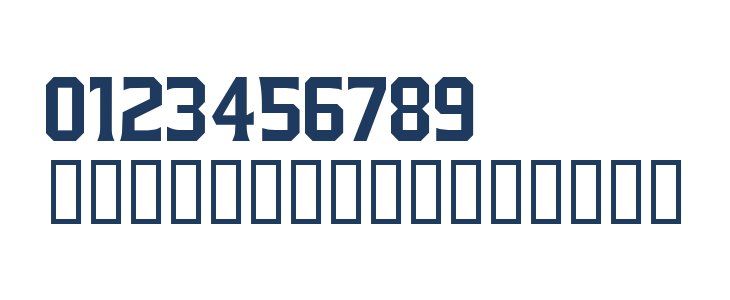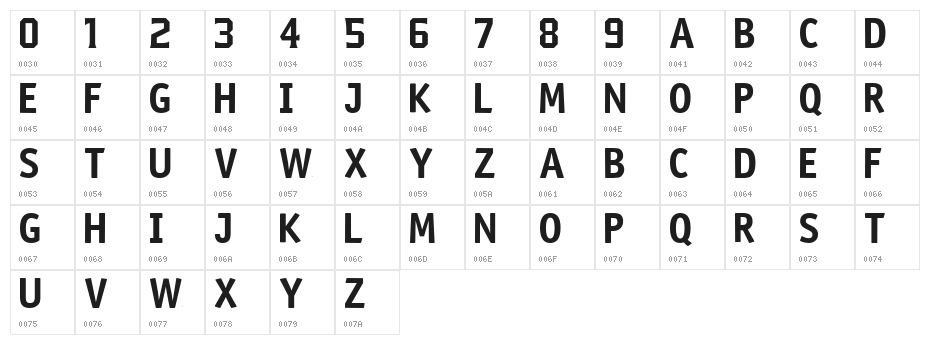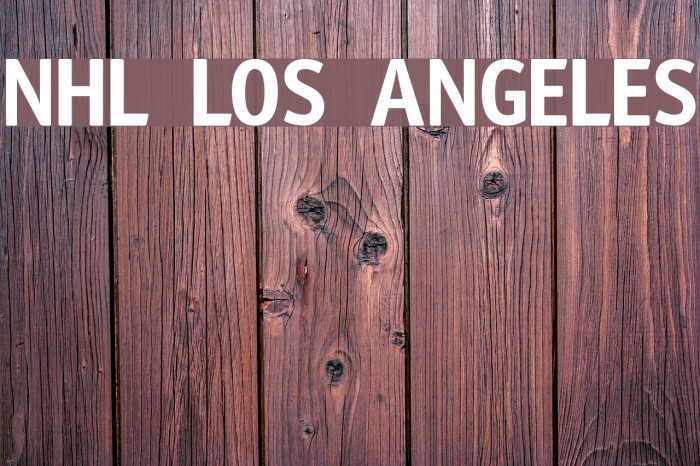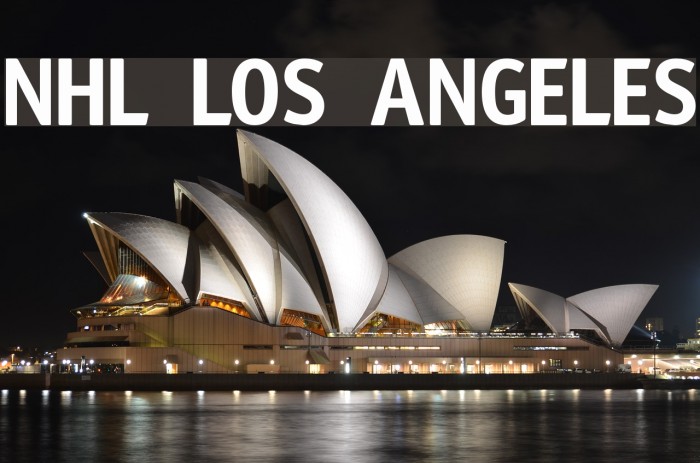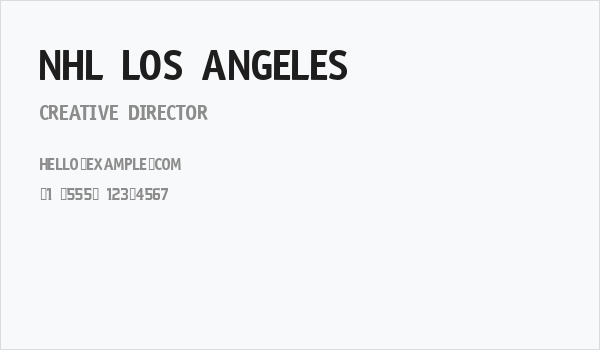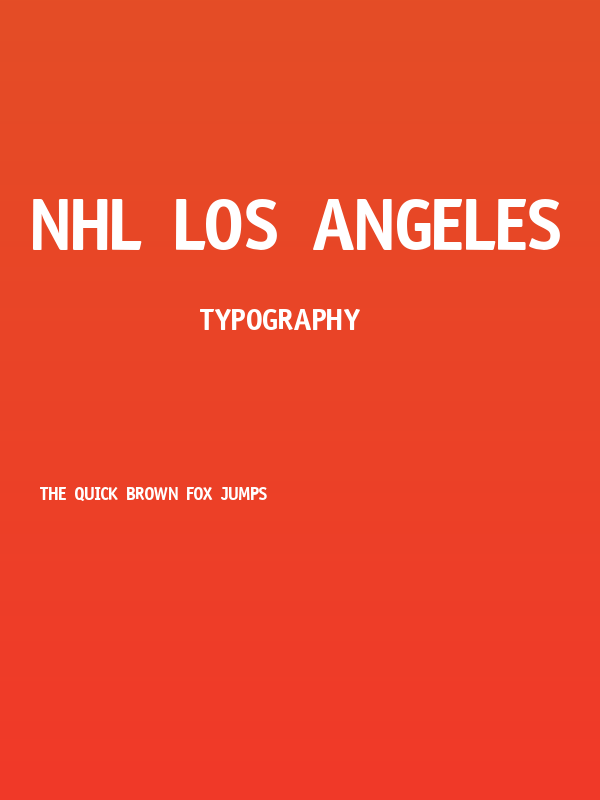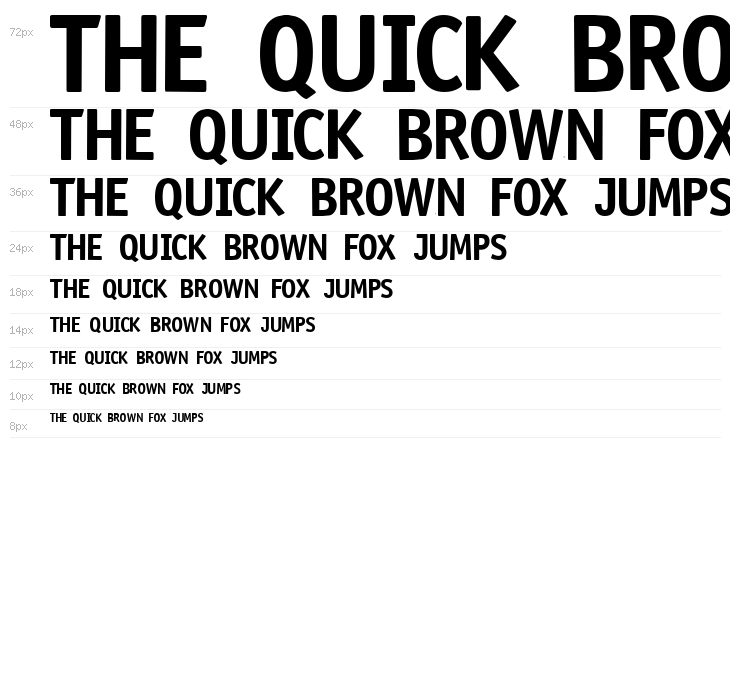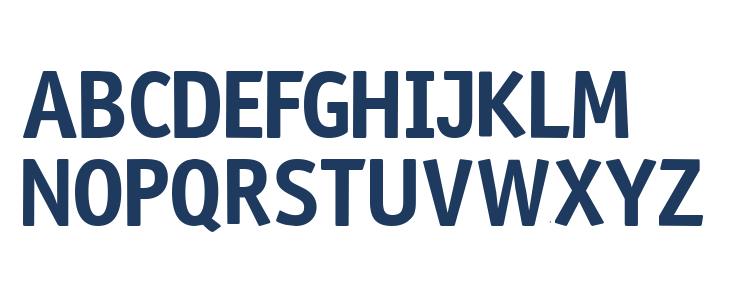
NHL Los Angeles Font
NHL Los Angeles Description
This font features a bold and assertive style, characterized by its strong geometric shapes and clean lines. The uppercase letters are uniform in height, creating a cohesive and structured appearance. The numbers are equally bold, with a distinct angular design that complements the overall aesthetic. The font's design is modern and impactful, making it suitable for projects that require a strong visual presence. Its lack of serifs and uniform stroke width contribute to a clean and contemporary look, ideal for digital and print media.
| Proposed Projects | Ideal for sports branding, headlines, posters, and digital media where a strong, impactful presence is needed. |